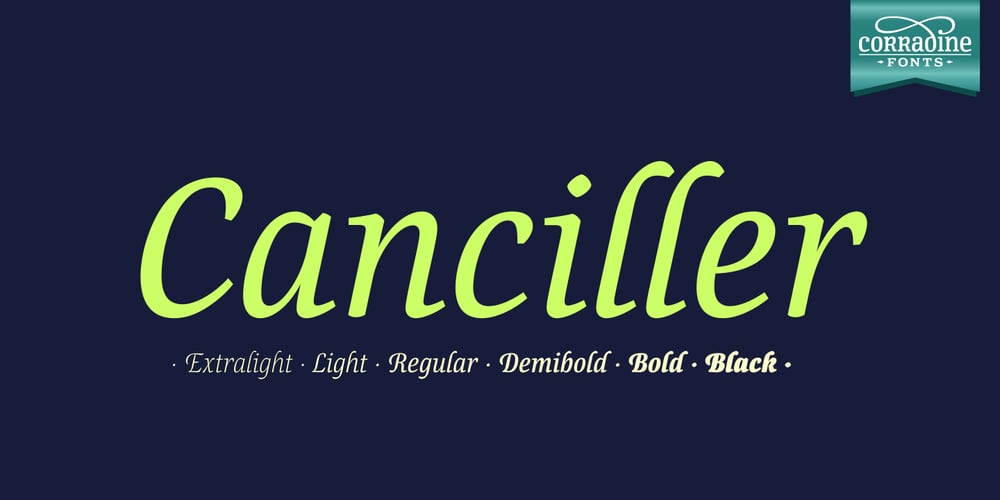
Canciller Font Family was designed by Manuel Eduardo Corradine, Sergio Ramírez Llamas and published by Corradine Fonts. Canciller contains 6 styles and family package options. Canciller is an elegant typeface designed by Manuel Corradine and Sergio RamÌrez that will give your projects a very exclusive and fresh appearance. Its style is a mix between the grace of calligraphy and the legibility of typography so Canciller can be used in a wide range of purposes. It’s available in six weights that go from light and delicate to black and powerful to give the designer the possibility of creating hierarchies and great contrasts. Its character set supports Western and Central European languages.